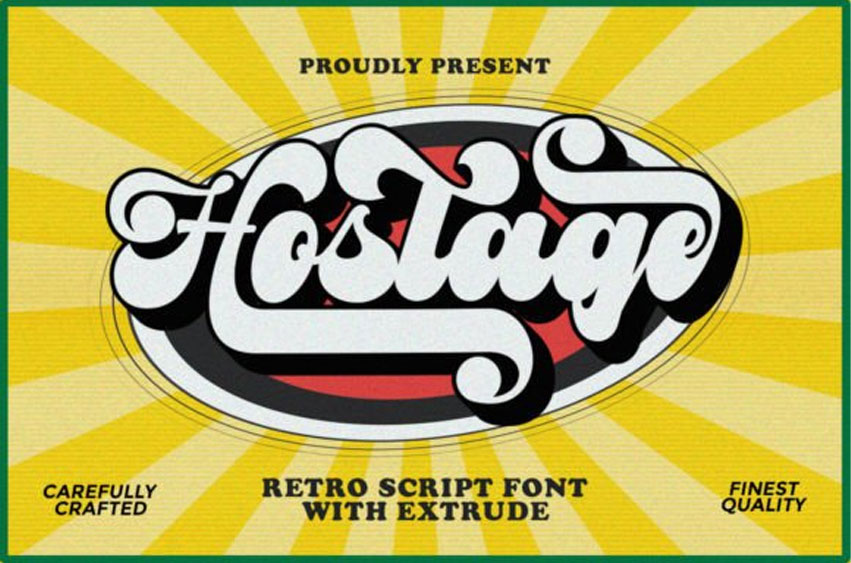
Hostage Font is a retro bold script that will bring you back to the 60s feel. This typeface has the extrude version so you can create your retro effect font with ease.
This font is perfectly made to be applied especially in logos, and other various formal forms such as invitations, labels, logos, magazines, books, greeting/wedding cards, packaging, fashion, makeup, stationery, novels, labels, or any type of advertising purpose.